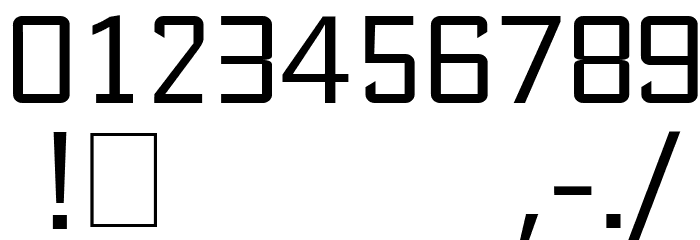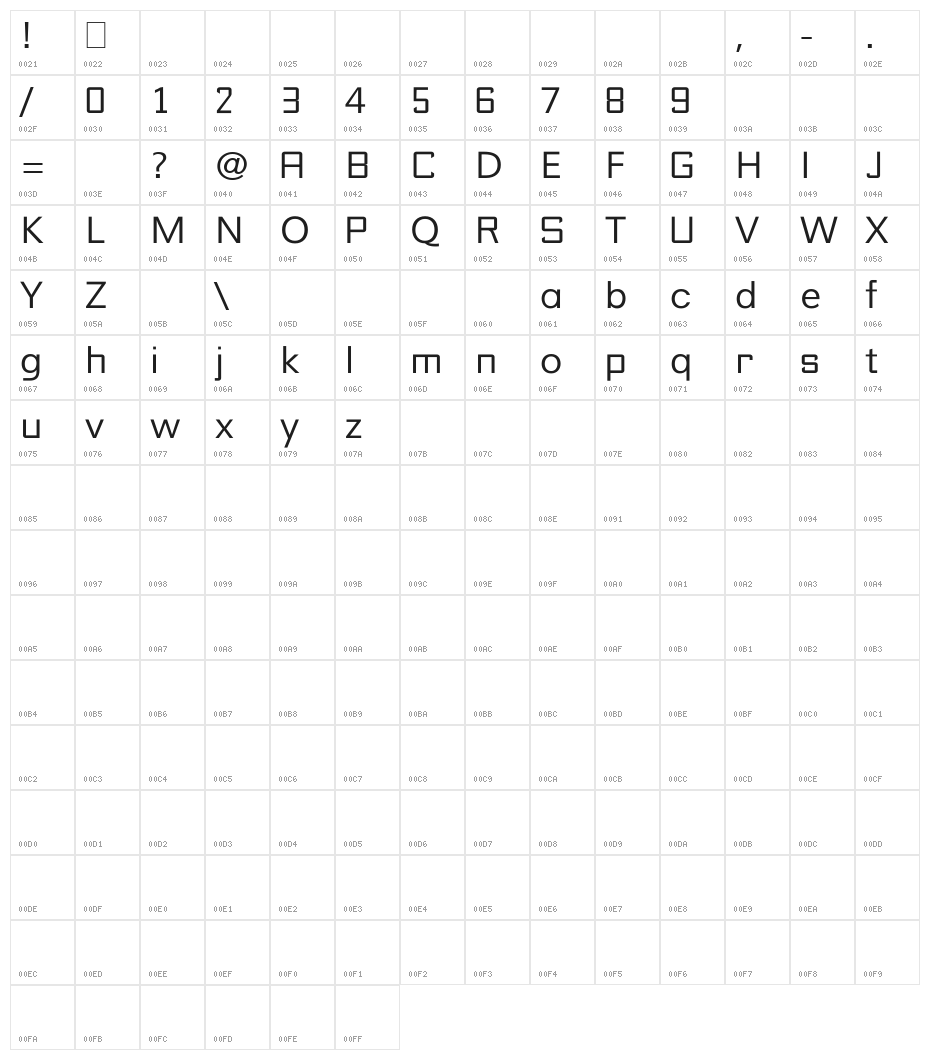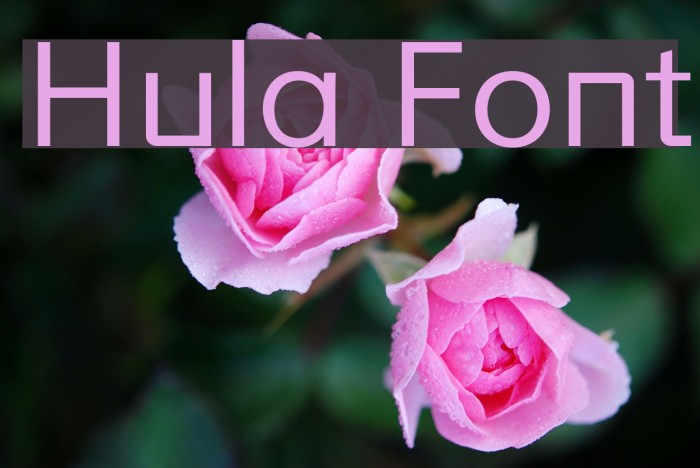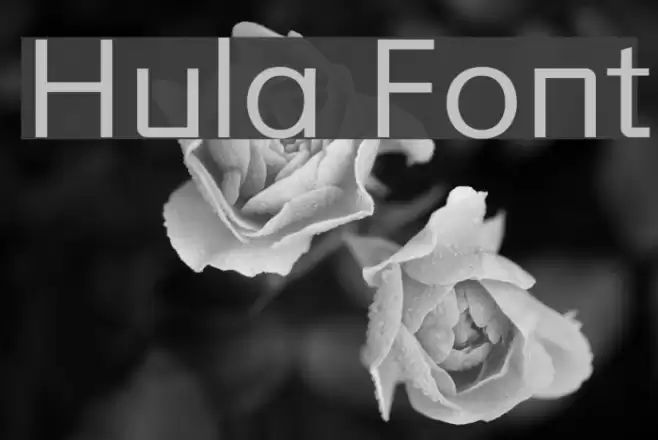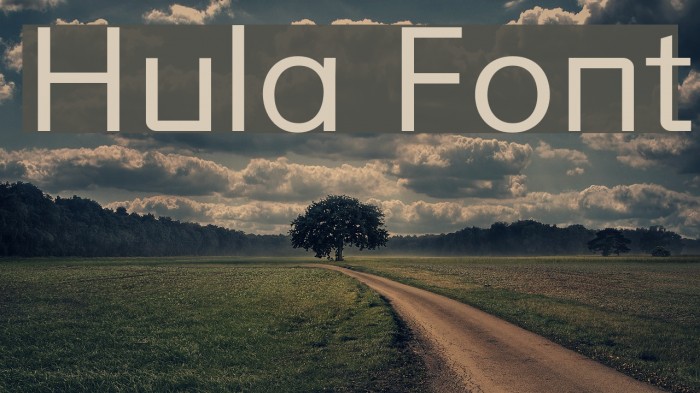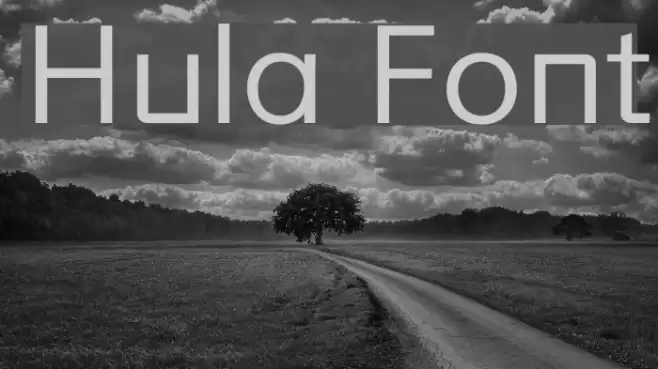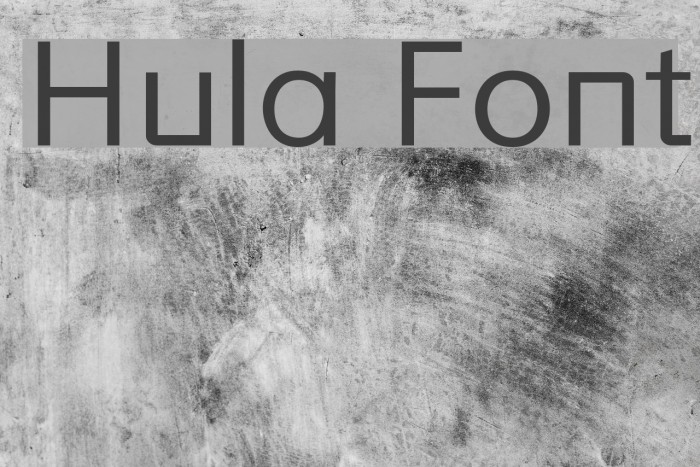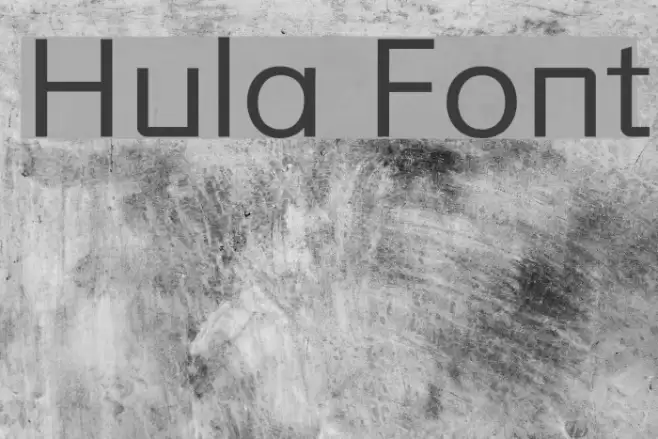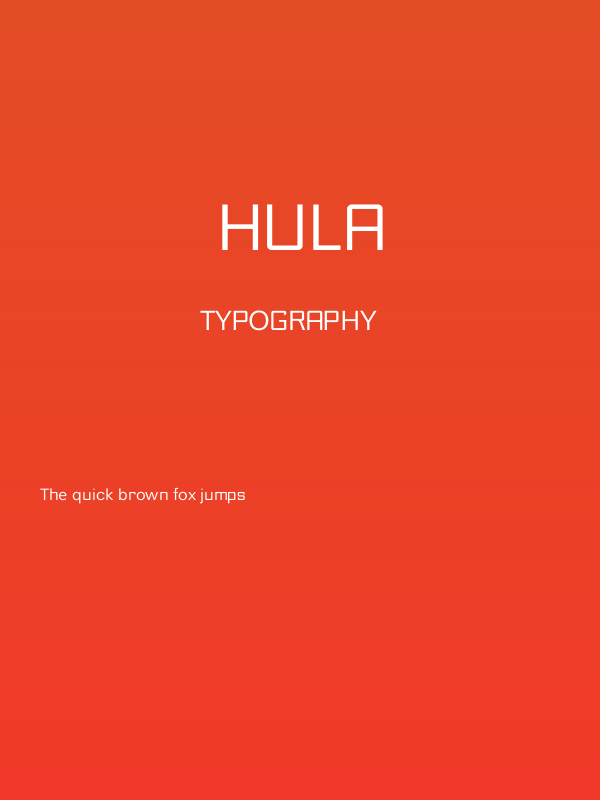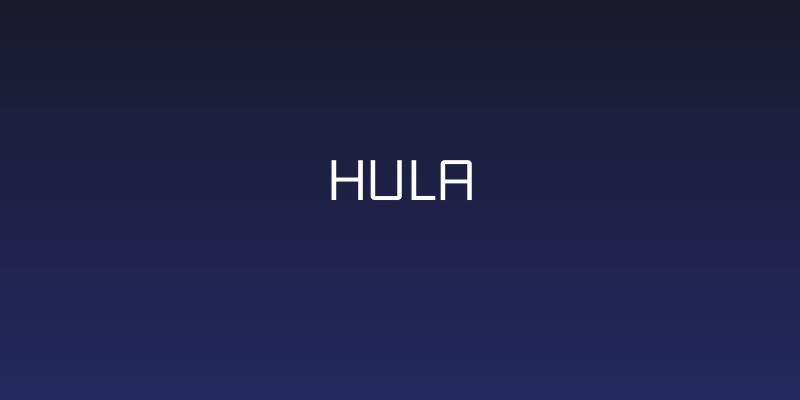
Hula Font
Hula Description
This font features a modern, geometric sans-serif style with clean, straight lines and a structured appearance. The uppercase letters are uniform in height, with a consistent stroke width that gives a balanced and harmonious look. The lowercase letters maintain a similar geometric structure, providing a cohesive design throughout. The numerals are clear and legible, matching the overall aesthetic of the alphabet. Special characters are included, maintaining the same geometric and modern feel. This font is versatile and can be used in various design projects that require a contemporary and sleek appearance.
| Proposed Projects | Ideal for branding, web design, advertising, and editorial layouts that require a modern and clean aesthetic. |